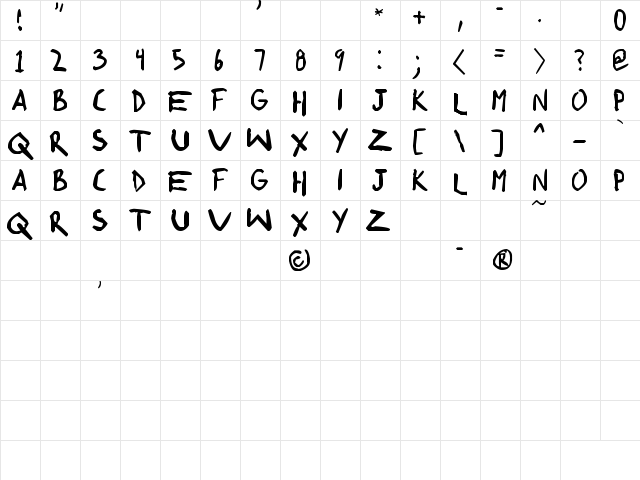
shonen punk! custom Regular
Design Context for shonen punk! custom Typeface
shonen punk! custom is a composed and adaptable typeface that performs quietly and consistently across a wide range of design contexts.